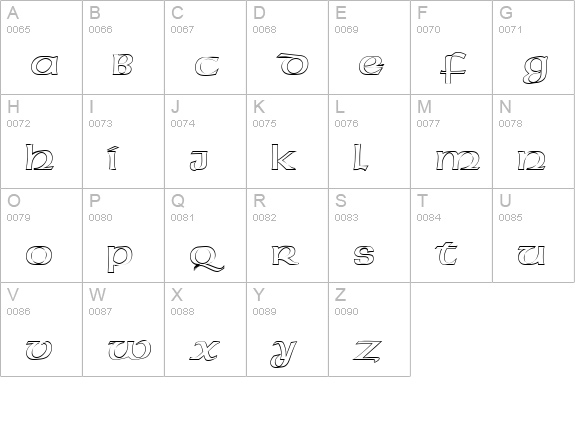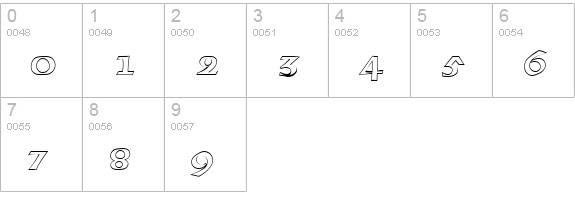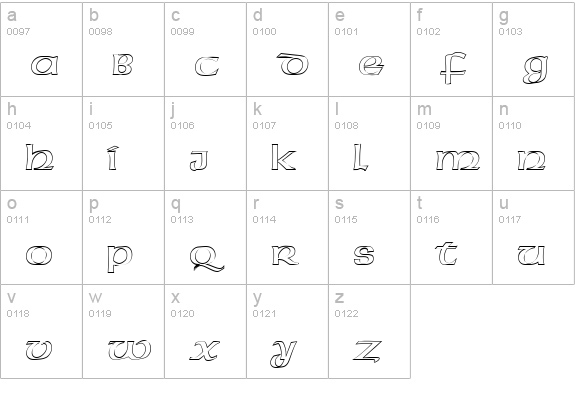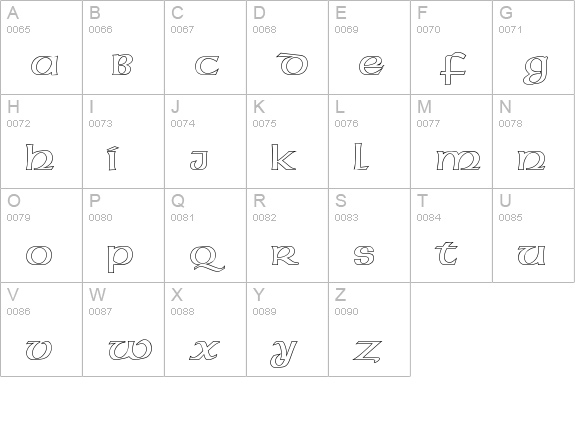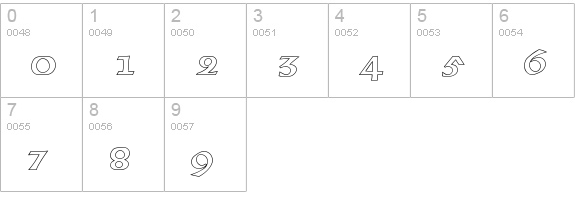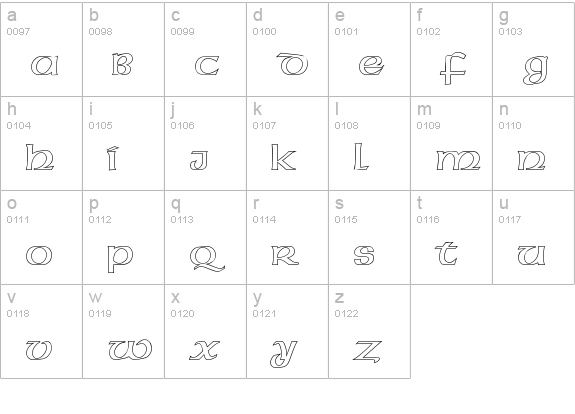
LateranOpen Font Details
LateranOpen is a modern and versatile font that combines elegance with readability. With its clean lines and stylish aesthetic, this font is suitable for a wide range of design projects, from branding to editorial layouts. The sleek and contemporary design of LateranOpen makes it a great choice for both digital and print applications. One of the best things about LateranOpen is that it is completely free to download. You can easily access this font at FontsMarket.com, where you can download it and start using it in your projects right away. Whether you are a designer looking for a fresh new font to add to your collection or a business owner in need of a stylish typeface for your branding materials, LateranOpen is sure to impress with its modern and sophisticated look. Download LateranOpen today and elevate your designs with this stunning and freely available font.